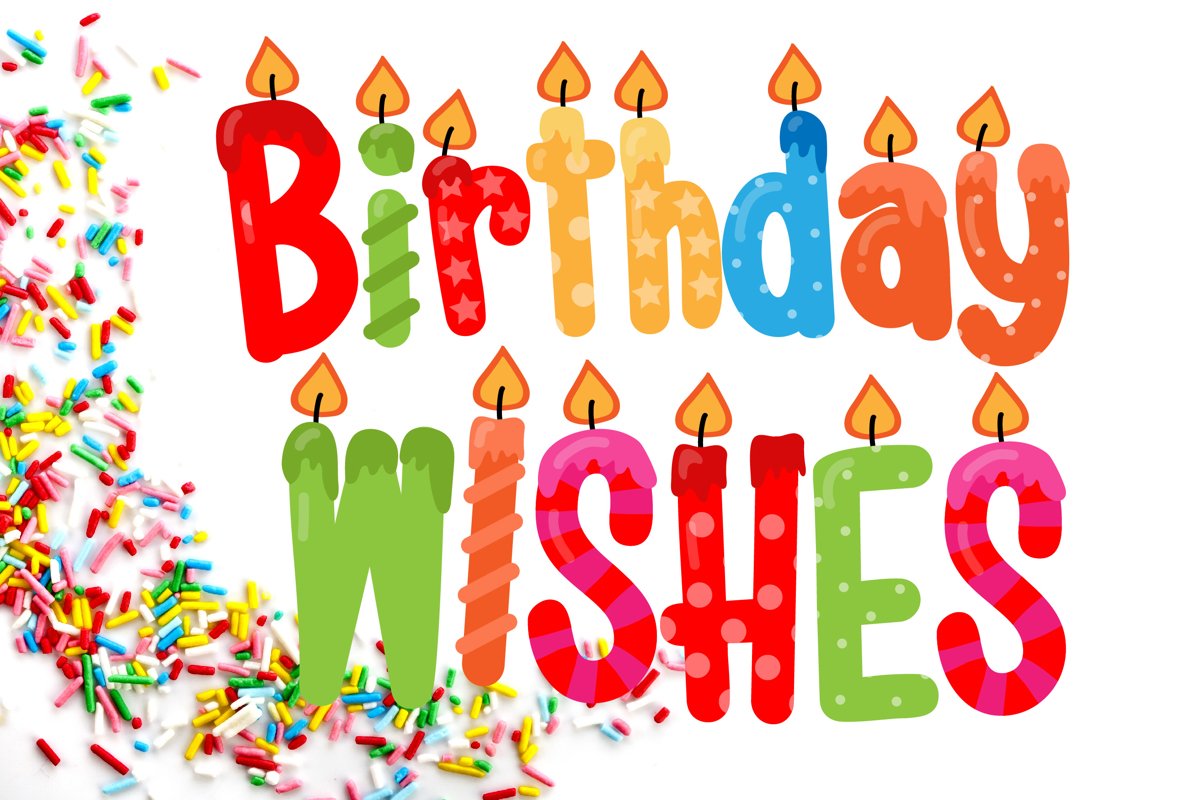
Birthday SVG Font Duo
This SVG or full-color font features two separate .otf font that look like birthday candles and birthday gifts. This font works best for titles, displays, posters and more. Please note color fonts will show as black in non compatible programs. This font type is compatible with Silhouette Studio and Adobe products.